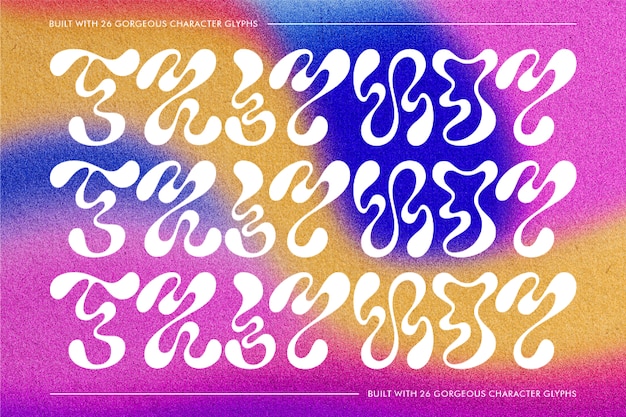
Triphop Font
Triphop is a quirky font that captures the essence of wave-like movement with a psychedelic twist. Its random display of playful shapes and vibrant curves creates an eye-catching visual experience that draws the viewer in. Ideal for music covers, art projects, or bold branding, Triphop adds an eclectic flair, bringing a sense of fun and creativity to any design, making it truly unforgettable.